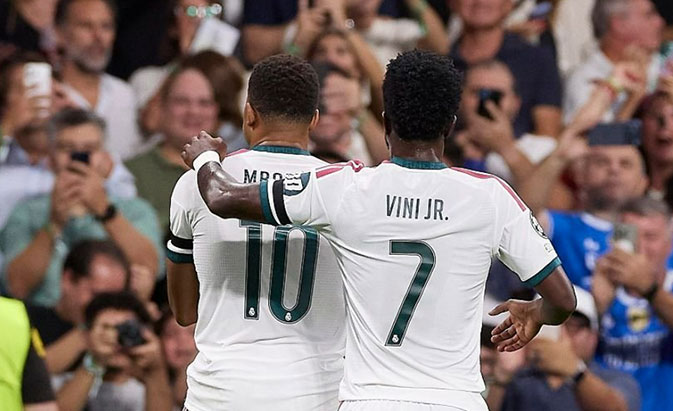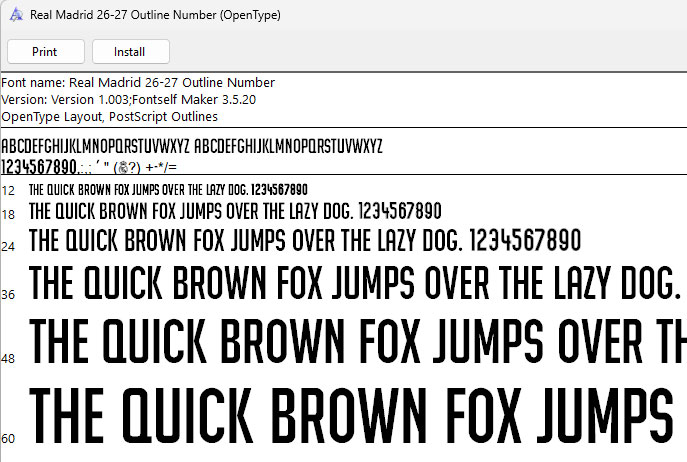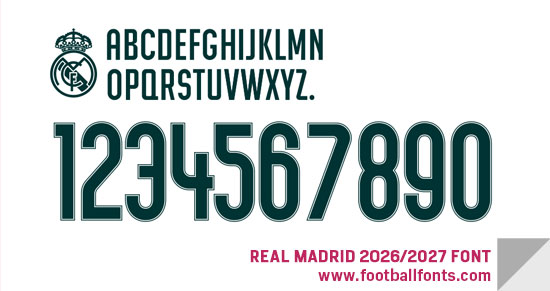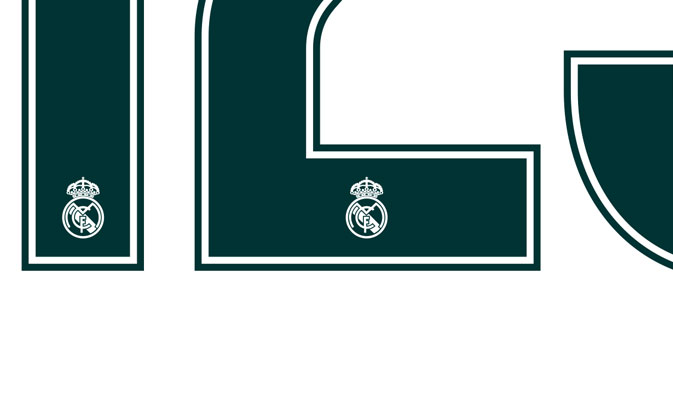
This is the look of Real Madrid font that will be used for their kit in all non Laliga matches in 2026/2027 season, including UEFA Champions League and Copa del Rey.
Real Madrid 2026/2027 Font
We have font that you can use as Real Madrid 2026/2027 font which is general font with all plain letters and numbers (with no club logo in the bottom of numbers). This font you can use for shirts name and shorts number, or you also use it for back number and add the logo manually. Also we provide the outlined number version in OTF.